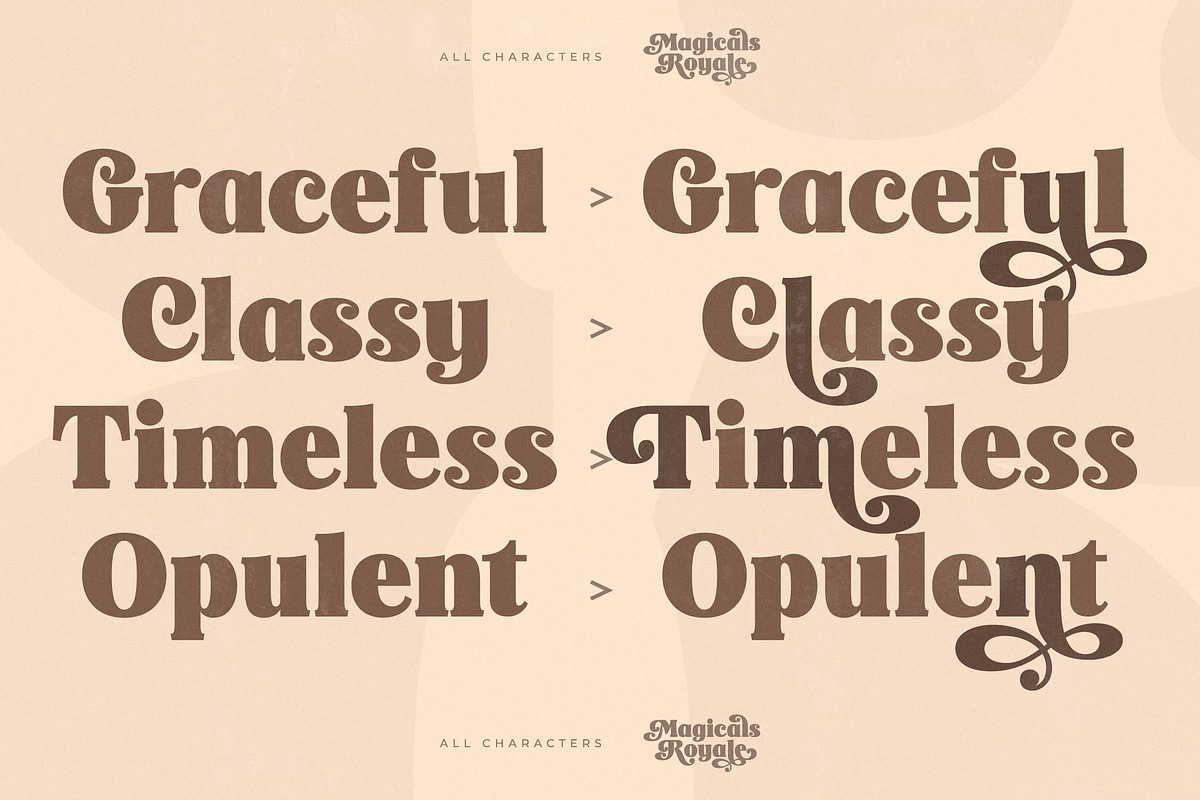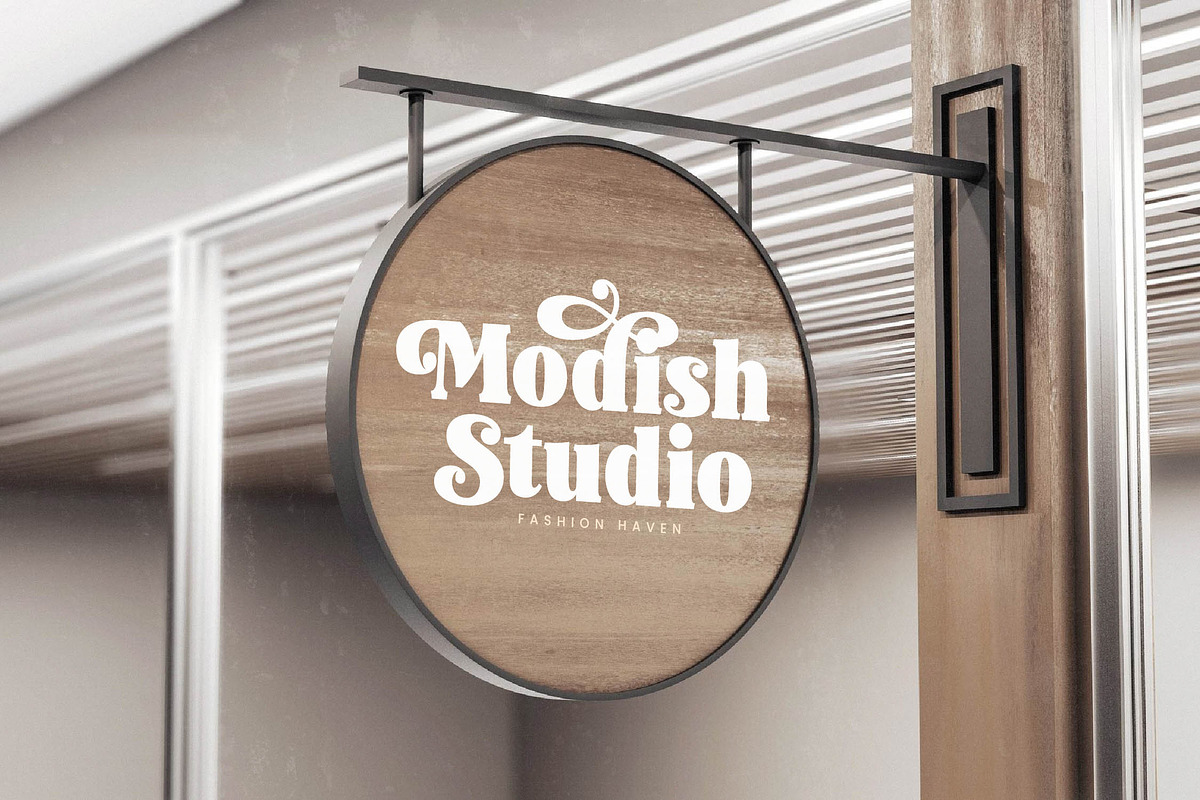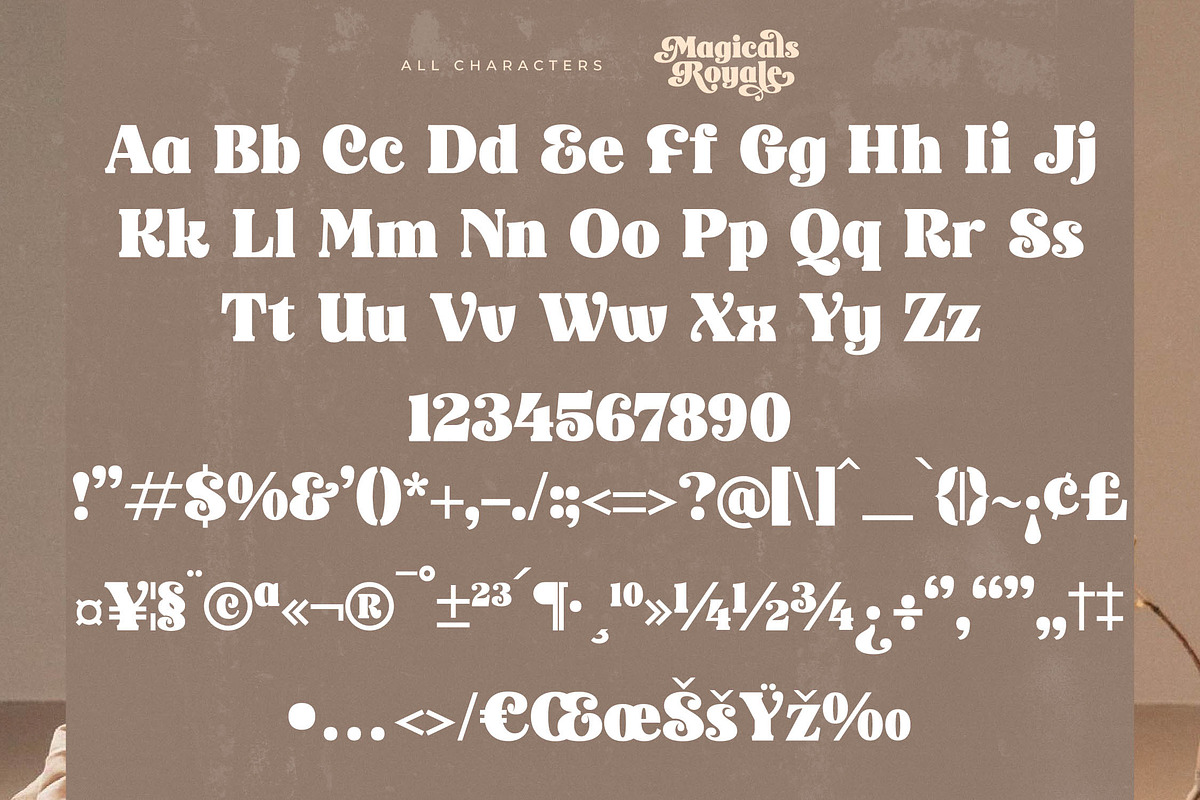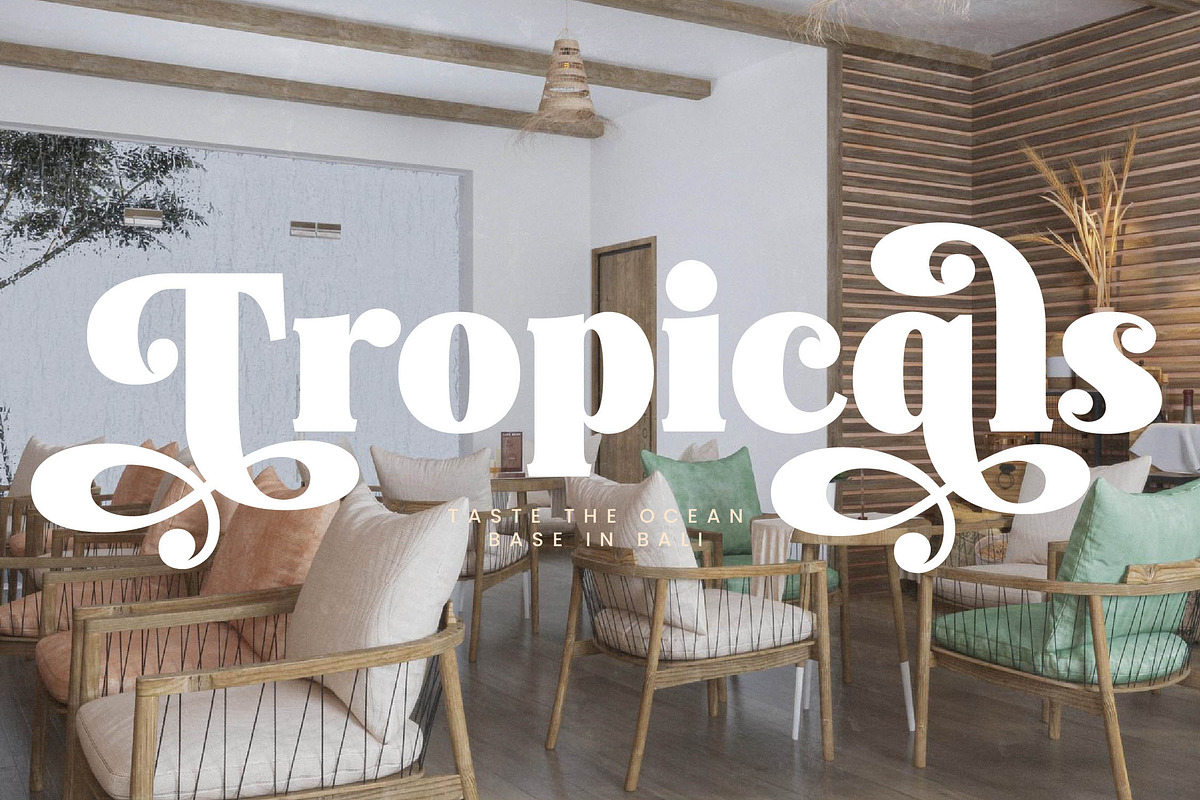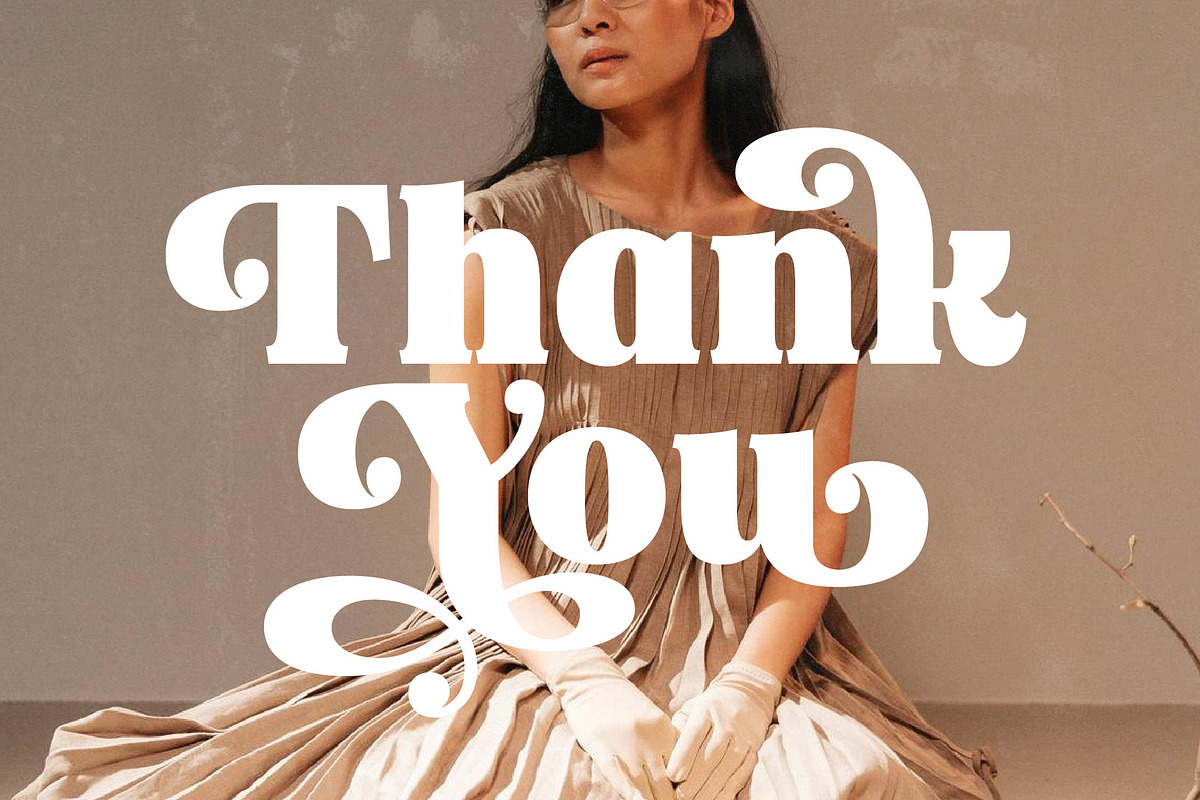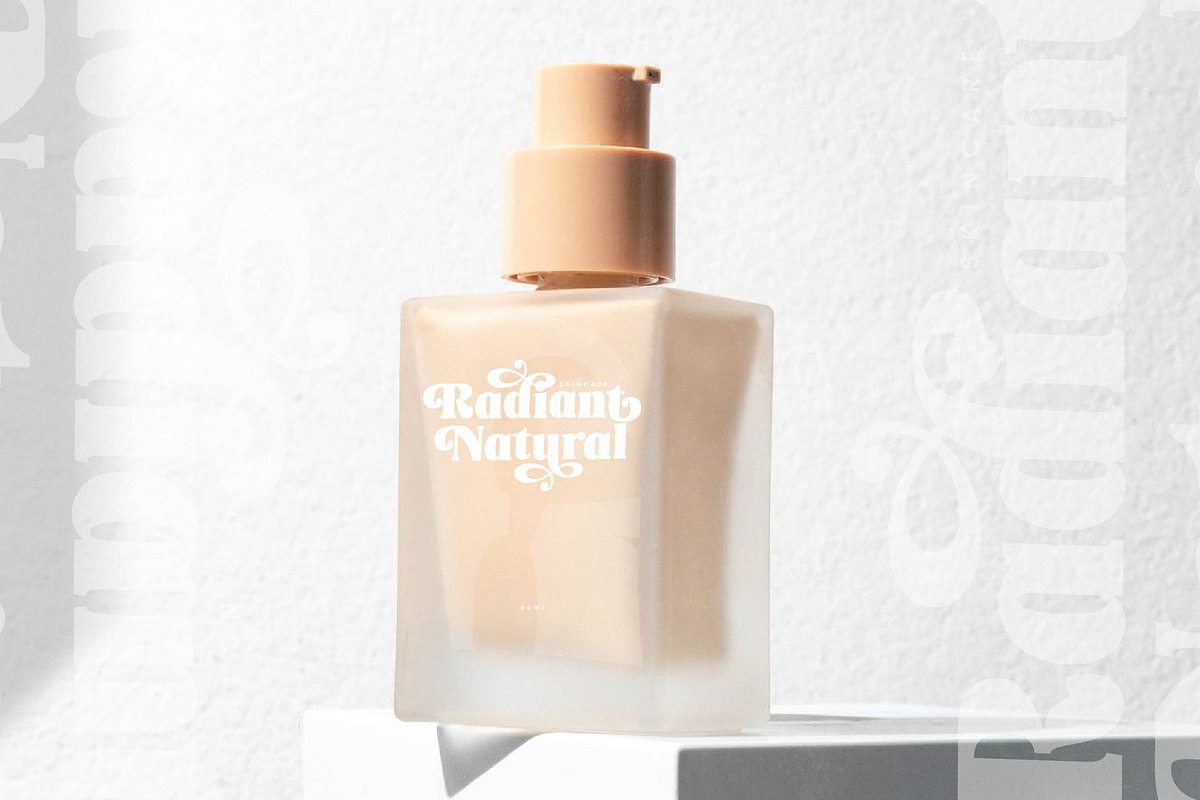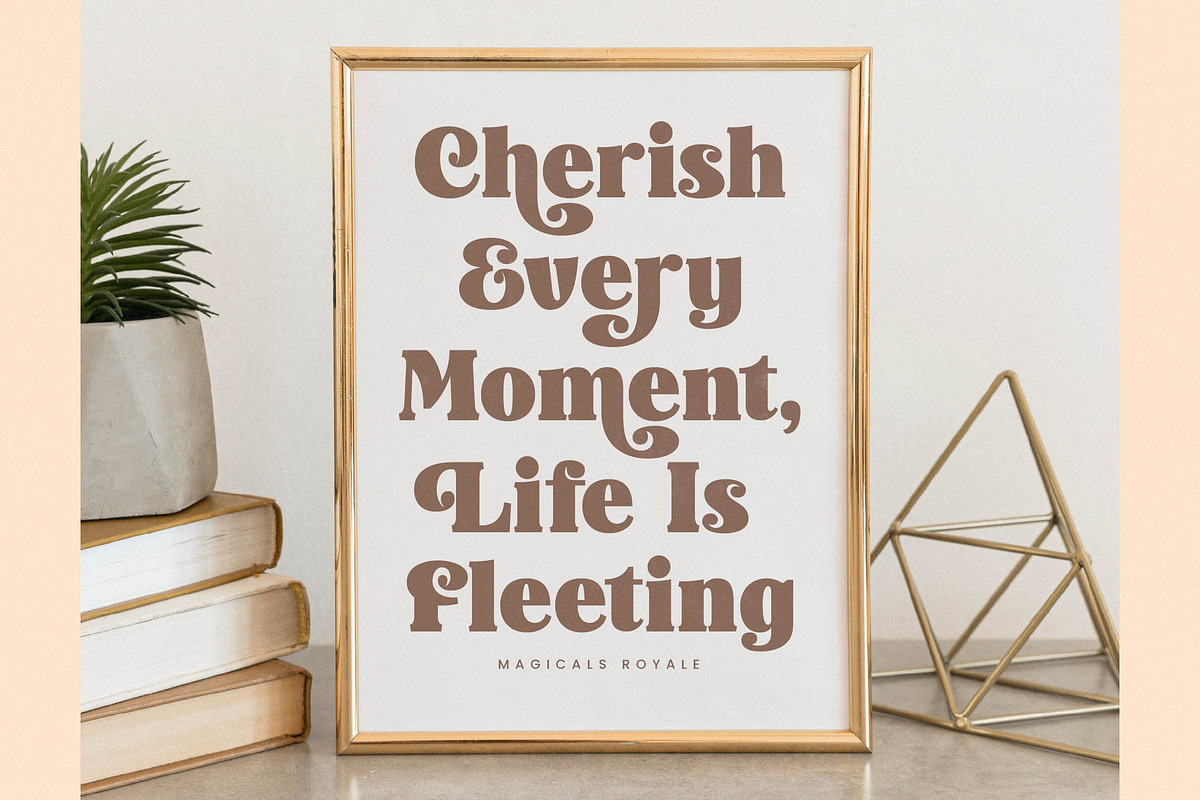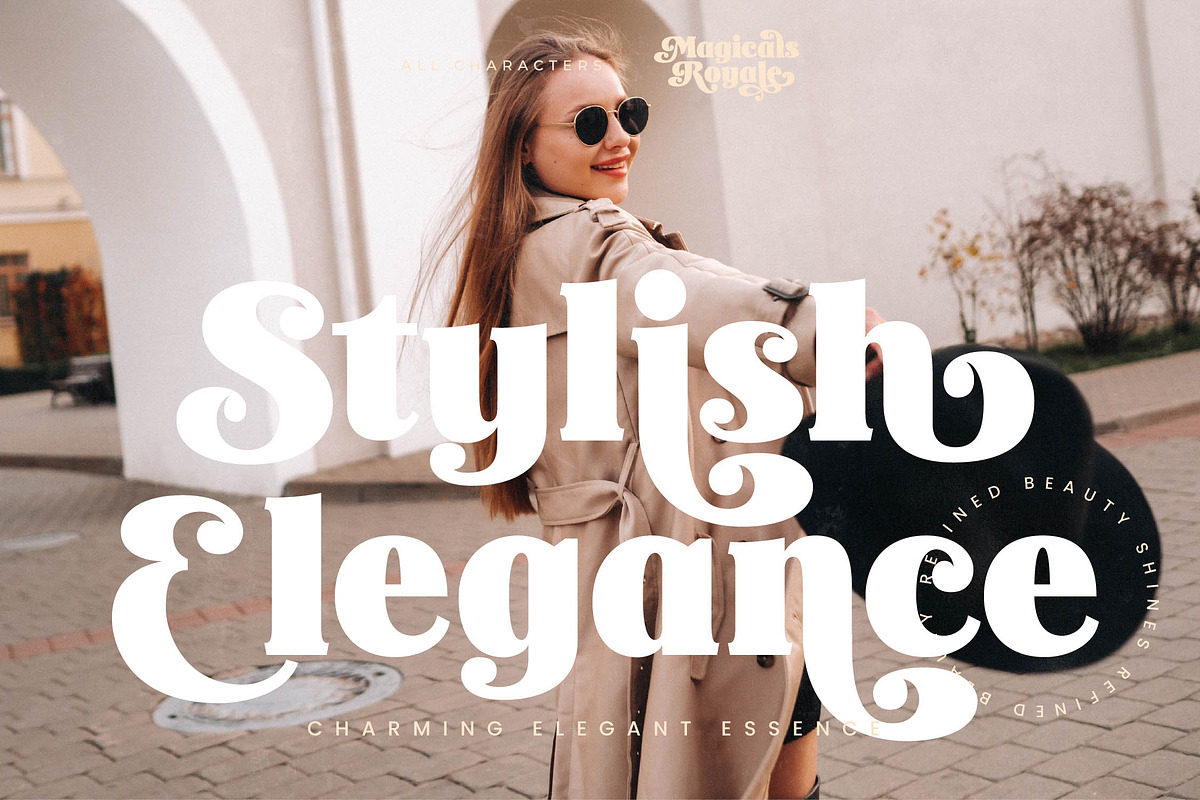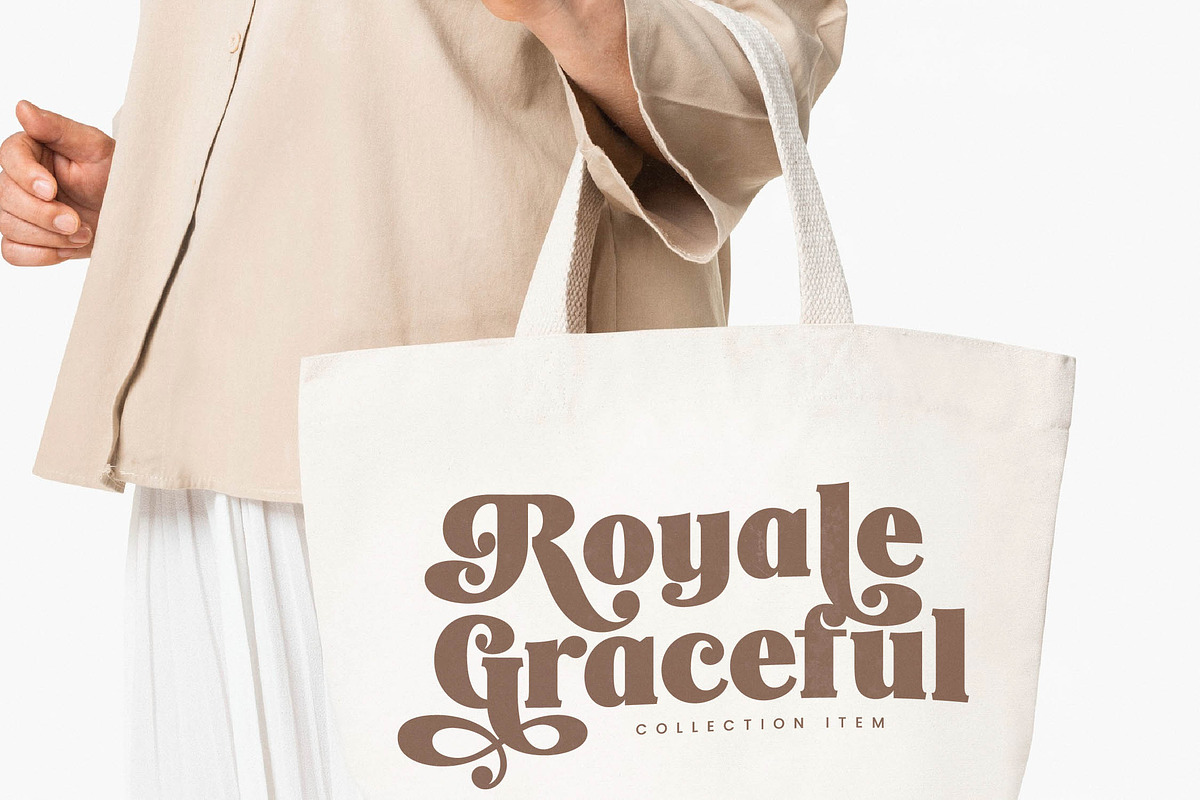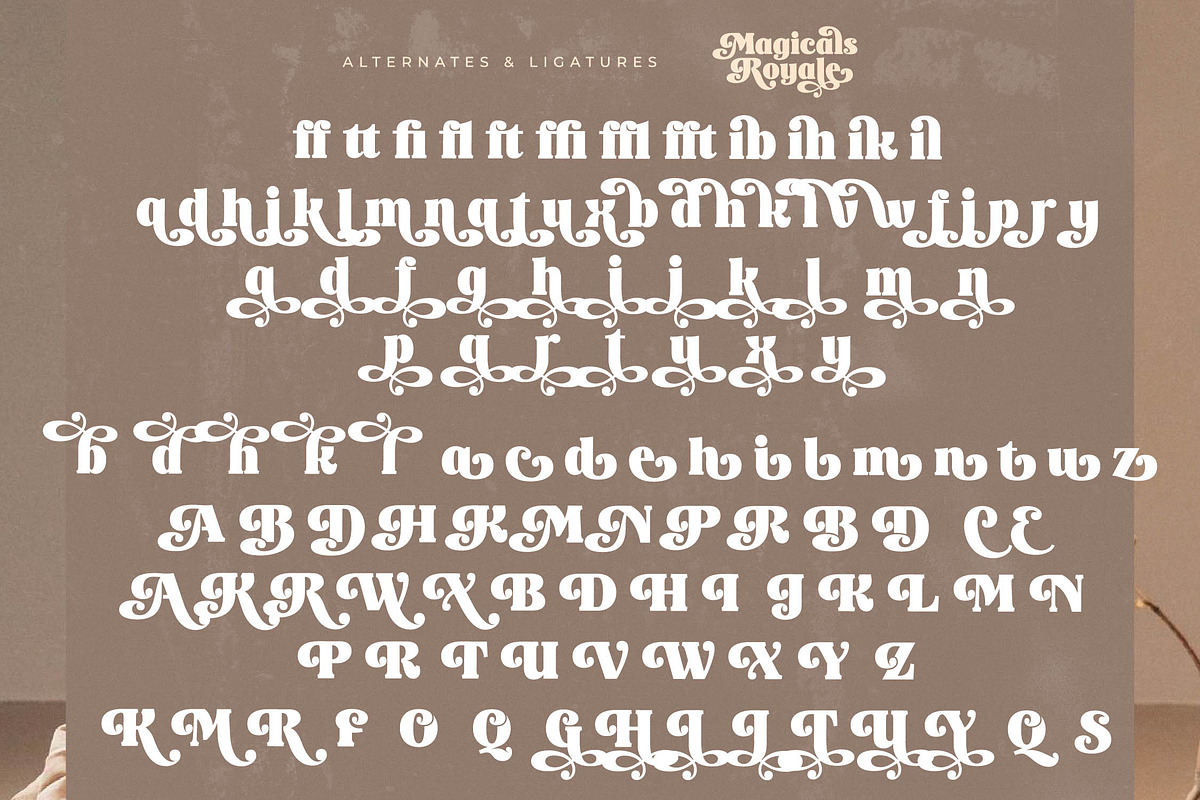
Magicals Royale Modern Vintage Font
Step into a world of timeless beauty with Magicals Royale, a typeface that balances classic sophistication with a touch of whimsical charm. This font is designed to act as a centerpiece for your designs, turning every word into an artistic statement.
Inspired by the romantic aesthetic of mid-century high-fashion editorials and the fluid, organic curves of the Art Nouveau movement, this font carries an atmosphere of nostalgic luxury. It evokes the spirit of boutique storefronts and the golden age of cinema with its graceful curves and bold presence.
As a modern serif display, this font delivers a striking visual rhythm that is perfect for luxury typography. Its high-contrast serif construction provides an unmistakable editorial font quality, ensuring every project carries a significant branding impact and professional polish.
Perfectly aligned with the current modern serif trend, this typeface meets the growing demand for editorial display fonts that feel personalized and custom-made. It stands at the forefront of character-driven typography, offering a unique voice in a crowded digital landscape.
This versatile typeface is the ultimate solution for high-end logo design, sophisticated branding identity systems, and sleek editorial layouts. It adds a layer of distinction to premium packaging, romantic wedding stationery, and avant-garde fashion lookbooks.
To ensure maximum creative freedom, the font is packed with unique ligatures, creative alternates, and decorative swashes for a custom-tailored look. Complete with full multilingual support and international characters, it is a premium asset built for global design excellence.
- Ligature 12 Alternate 110